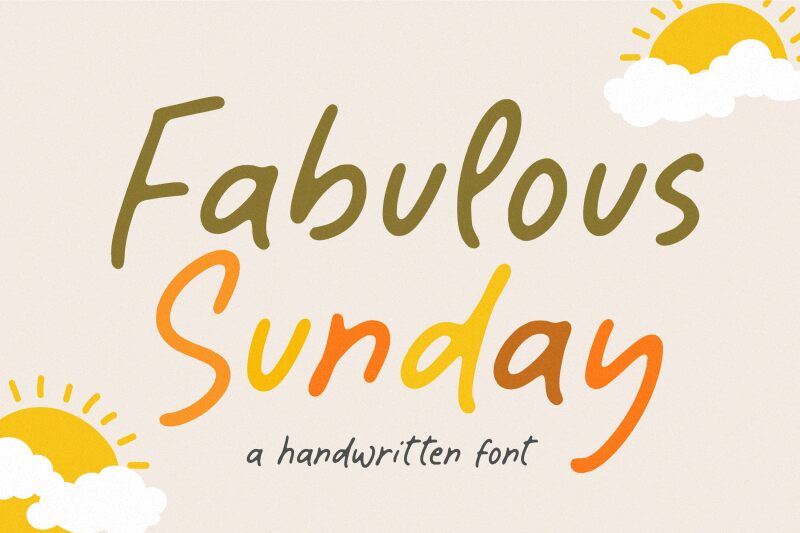
Fabulous Sunday
Fabulous Sunday font is a condensed handwritten font designed by Balpirick Studio. It exhibits the artistic flair often seen in modern script fonts, mixing elegance with a casual style. Whoever uses this free handwritten font within their projects will create an inviting and welcoming ambiance, a great opportunity to connect with their target audience.
Vintage posters instantly come to mind with this new addition alongside invitation cards, greeting cards, packaging designs for handmade products, headlines and body text of blogs and websites, apparel items, inspirational quotes or messages, books whose stories take you back in time or modern novels.